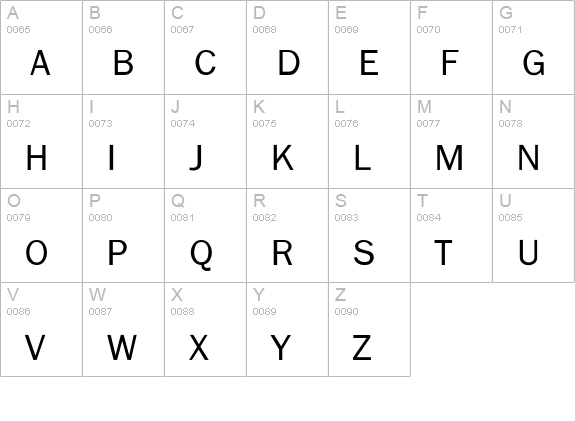
FranklinGothic-Light Font Details
FranklinGothic-Light is a refined, elegant variant in the FranklinGothic typeface family \xE2\x80\x94 well suited to elegant body text, refined sub-headings, and luxury branding.
Franklin Gothic-Light font is a sleek and versatile typeface that exudes elegance and modernity. With its clean lines and subtle curves, this font is perfect for creating a sophisticated and contemporary look in your designs. The light weight of the font adds a touch of subtlety and refinement, making it ideal for a wide range of projects, from branding to editorial design. What's even better is that Franklin Gothic-Light font is available for free download at FontsMarket.com. This means you can easily access this stylish font and use it in your projects without any cost. So why wait? Elevate your designs with the timeless charm of Franklin Gothic-Light font today!